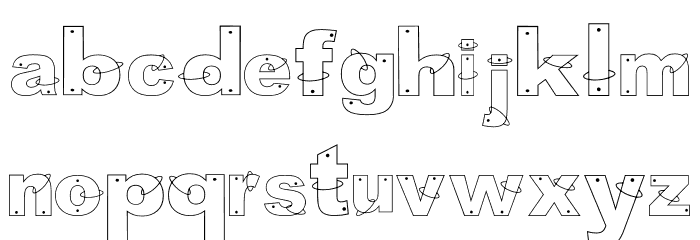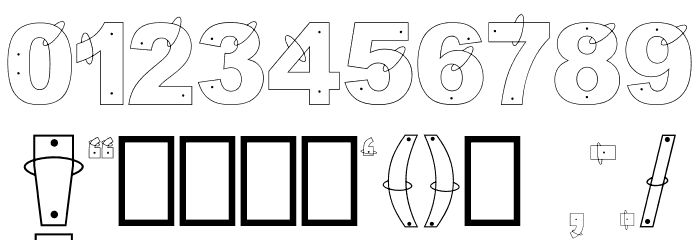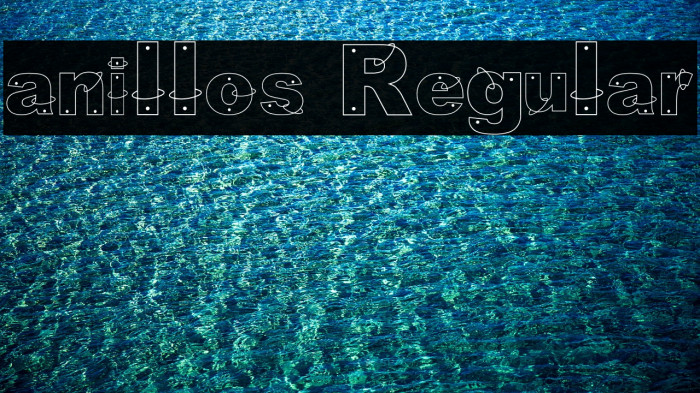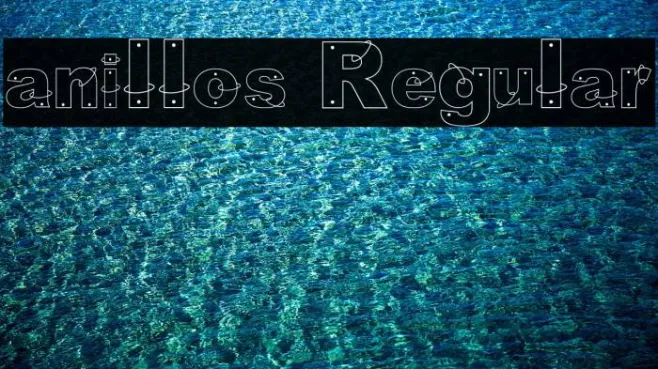
anillos Regular Font
This font features a unique and playful design with a mechanical, industrial feel. Each character is outlined with bold lines and includes small circular cutouts that resemble rivets or screws, adding to its distinctive style. The uppercase and lowercase letters maintain a consistent geometric structure, while the numbers and special characters follow the same thematic design. The font's overall appearance is both modern and decorative, making it suitable for creative and unconventional projects.
A playful, industrial-style font with geometric outlines and rivet-like details.
- Proposed Projects: Ideal for branding, posters, and creative projects that require a bold, industrial aesthetic.
- Overall Style: Modern, Decorative
- Use Case: Logos, Posters, Creative Branding